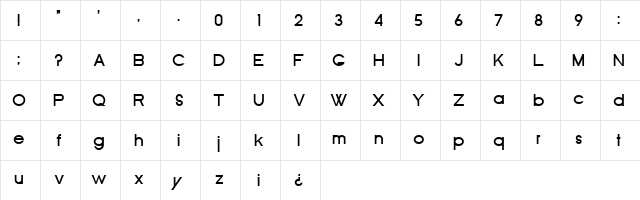
Old Republic Bold
Design Context for Old Republic Typeface
Old Republic is a composed and adaptable typeface that performs quietly and consistently across a wide range of design contexts. Its bold stroke weight gives it real presence on the page.